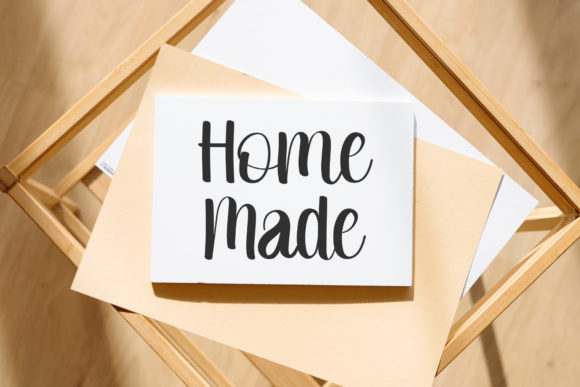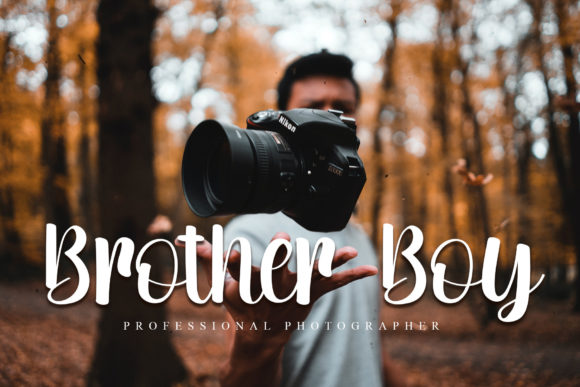
Misterday Font
db-ku.com - Script & Handwritten -- Misterday is a lovely and timeless handwritten font. It is the best choice for creating eye catching logos, branding and quotes. Every letter has a unique and beautiful touch, which will make your design come alive!